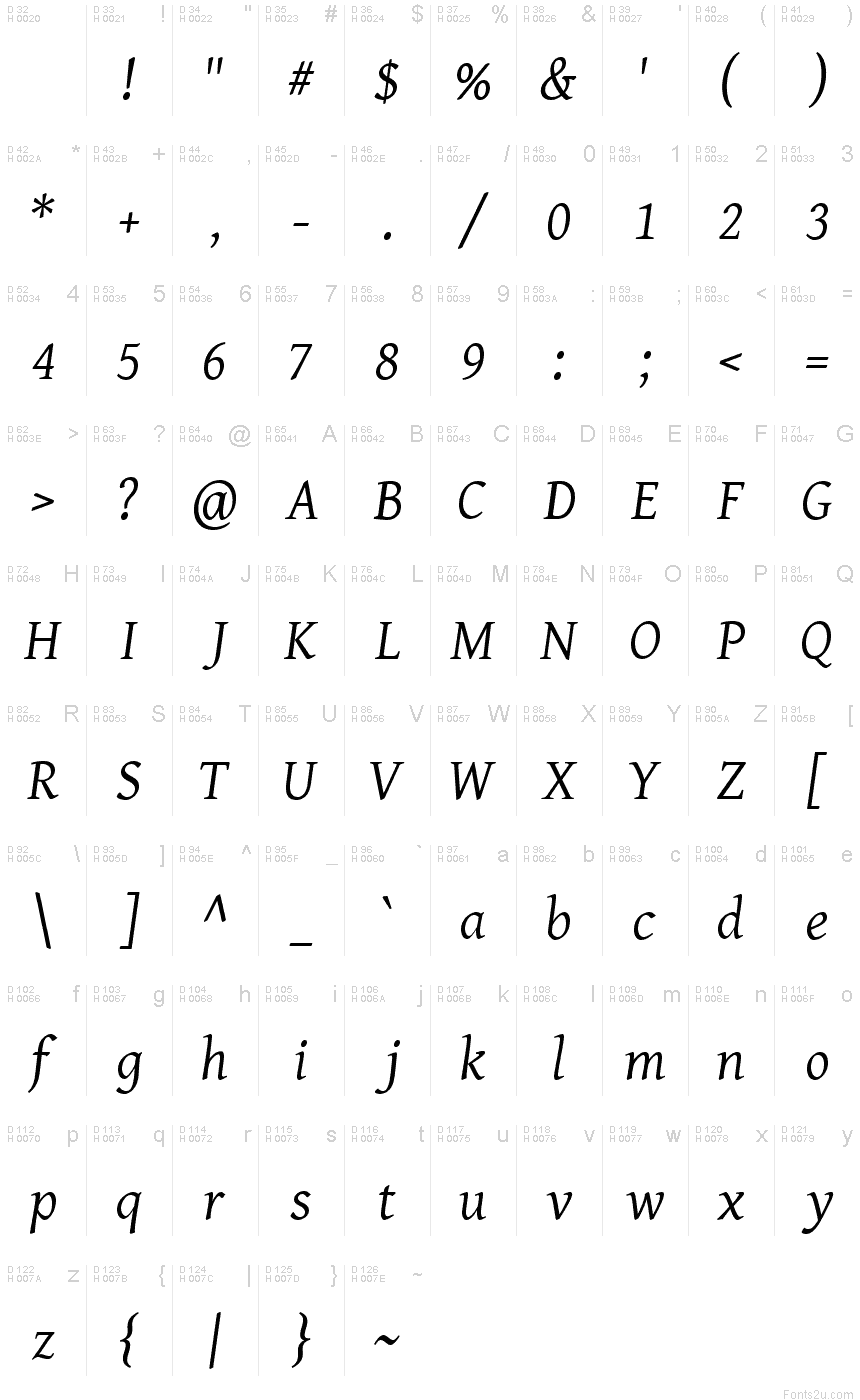
Gentium Italic
Gentium Italic font by J. Victor Gaultney is a free serif typeface that brings a quiet, literary grace to text without sacrificing readability. Its softly slanted forms and calligraphic curves feel hand-written yet carefully disciplined, giving paragraphs a gentle flow rather than a harsh mechanical tilt. The strokes are sturdy and smooth, so even at smaller sizes the words stay calm, clear, and comfortable to read across long passages.
Using Gentium Italic in the wider Gentium family is a natural fit for book interiors, academic papers, multilingual projects, poetry collections, and thoughtful essays where nuance matters. This free font shines in pull quotes, side notes, and emphasis within body copy, adding warmth without shouting. For a balanced page, set Gentium Italic a touch smaller than your headings and pair it with Gentium Regular or another understated serif for a cohesive, refined reading experience.